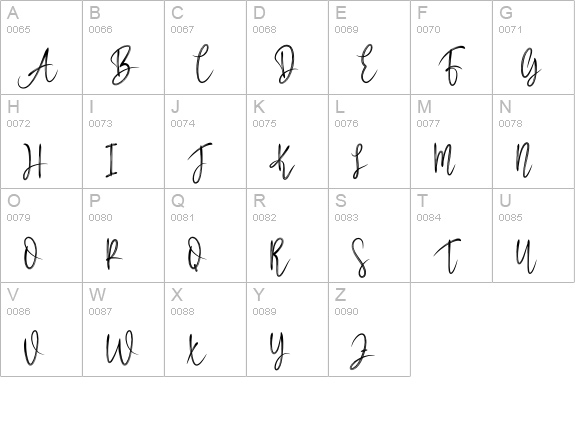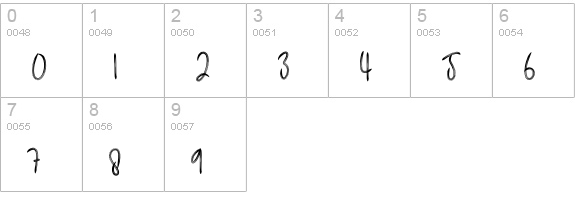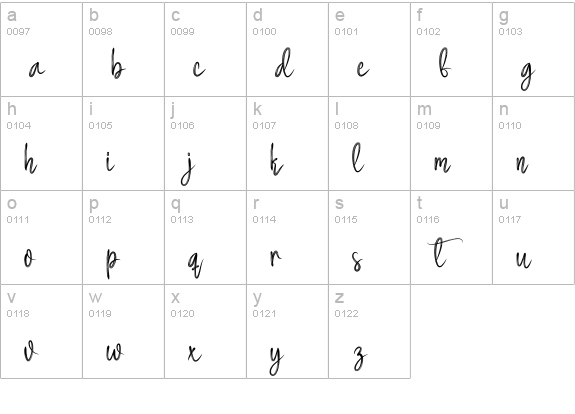
Handika is a free for personal use font in the Script > Handwritten category, designed by scratchones. It has been downloaded 11 times and is available for Windows, Mac and Linux.
Handika font is a visually striking typeface that seamlessly blends elegance with modern design elements. This stylish font features sleek lines and sharp angles, making it perfect for adding a touch of sophistication to any project. With its unique character and versatility, Handika font is sure to make a lasting impression on your audience.